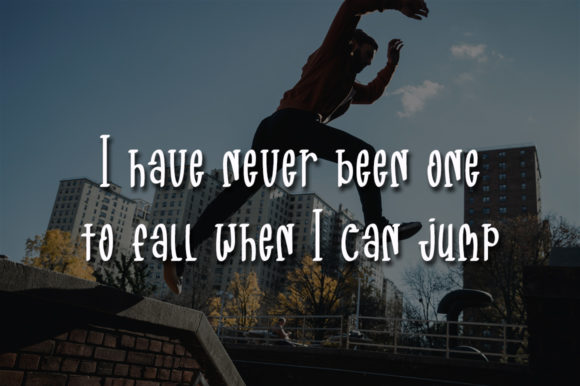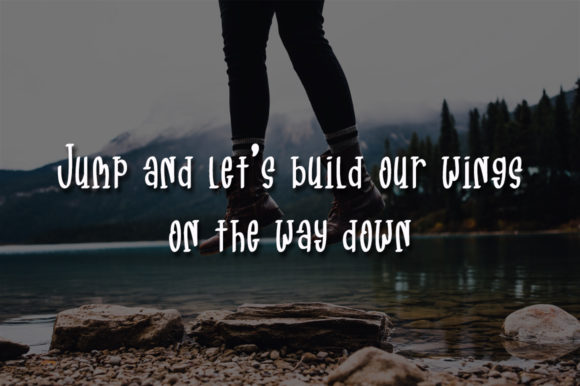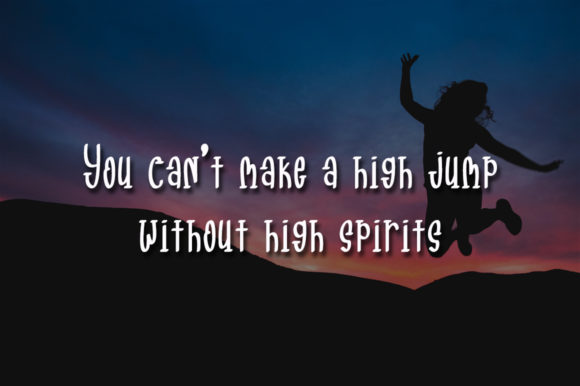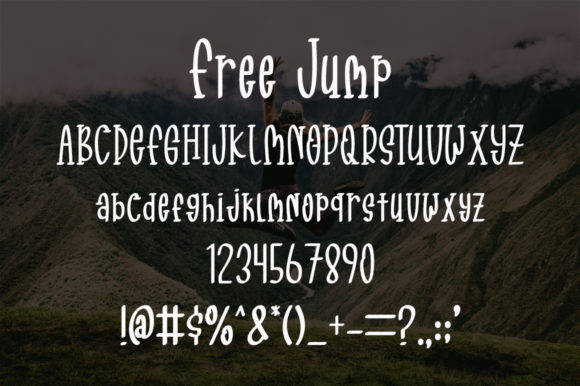
Introduction to Free Jump Font
Remember that moment when you stumbled upon the perfect font for your creative project? The one that captures the essence of your vision and elevates your design to the next level? For many designers, that moment is a game-changer. And if you’re looking for a font that embodies a carefree attitude and a playful edge, you’re in luck!
We’re excited to introduce you to the Free Jump Font, a fresh and unique script that’s perfect for adding a quirky but casual feel to your designs. With its large selection of natural-looking ligatures, this font is a valuable resource for designers who want to create high-quality designs that stand out from the crowd.
Honest Review: Free Jump Font
As a designer, I’m always on the lookout for high-quality design resources that can elevate my creative projects. The Free Jump Font is one such resource that caught my attention.
- ✨ High-quality font with a unique and bold design.
- ✨ Transparent background makes it easy to use with any color scheme.
- ⚠️ Limited character set, which might be a concern for designers who need to use the font for extensive text.
- ⚠️ Not ideal for use in small text sizes due to its bold design.
Overall, the Free Jump Font is a great addition to any designer’s toolkit. Its unique design and high-quality rendering make it perfect for creative projects that require a bold and eye-catching font. Just be aware of its limitations, and you’ll be all set to create stunning designs with this free download.
The Free Jump Font is a versatile font that can be used in a variety of creative projects, including:
- Website headers and footers